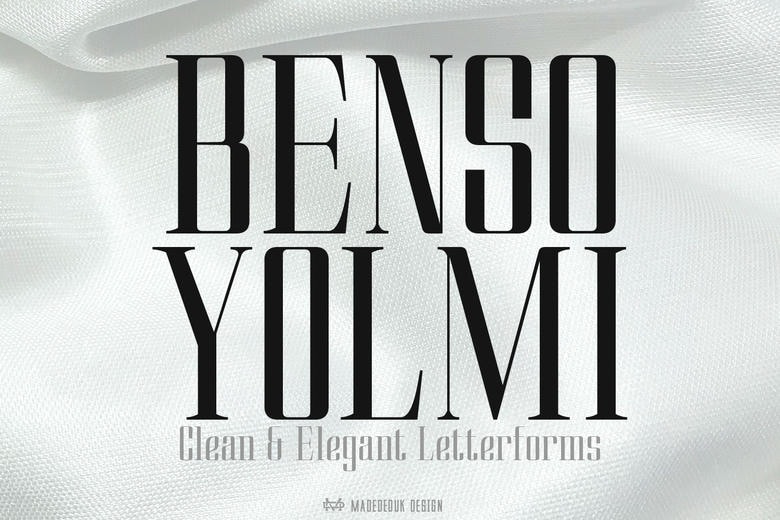
Benso Yolmi Font
Benso Yolmi is a modern, minimalist serif font made for clarity and simplicity. Its sleek lines and balanced shapes give it a timeless look that works well in many different settings.
Benso Yolmi Serif Font